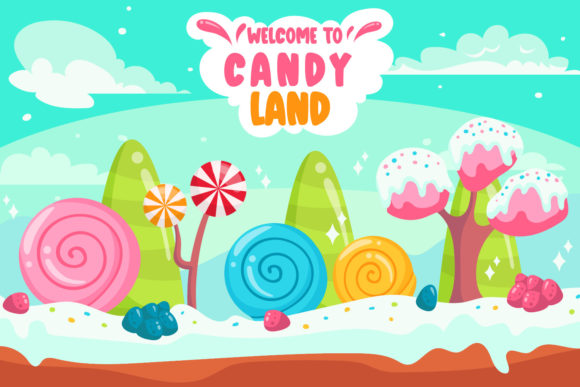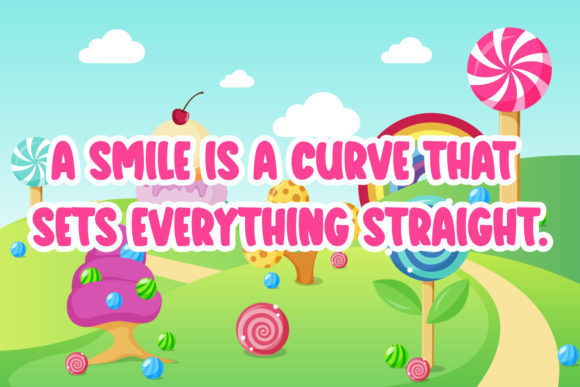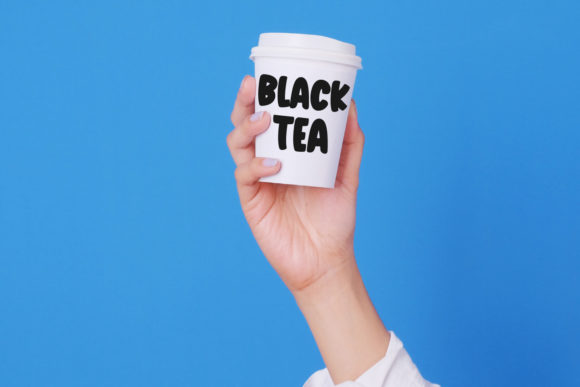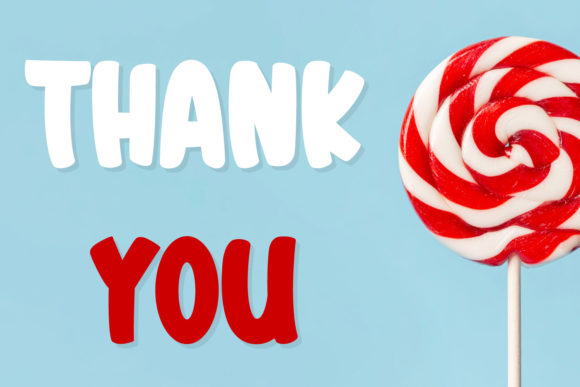
Introducing Display Candy Font: The Sweetest Addition to Your Design Toolbox
Are you tired of using the same old fonts in your designs? Look no further than Display Candy Font, a beautiful and cute display font that’s sure to add a touch of sweetness to your projects. With its unique and playful characters, Display Candy is perfect for a wide range of applications, from wall displays and wedding invitations to social media posts and product packaging.
What Makes Display Candy Font So Special?
Display Candy Font is a modern typography font that’s designed to make your designs stand out. Its characters are carefully crafted to be both visually appealing and highly legible, making it perfect for use in a variety of contexts. Whether you’re a designer, crafter, or DIY enthusiast, Display Candy Font is sure to become a favorite in your toolbox.
So, what can you use Display Candy Font for? The possibilities are endless! Here are just a few ideas to get you started:
- Wall Displays: Add a touch of personality to your wall displays with Display Candy Font. Perfect for showcasing quotes, lyrics, or fun phrases.
- Wedding Invitations: Make your wedding invitations truly special with Display Candy Font. Its elegant and playful characters are sure to impress your guests.
- Social Media Posts: Add some visual interest to your social media posts with Display Candy Font. Perfect for creating eye-catching graphics and quotes.
- Logos: Use Display Candy Font to create a unique and memorable logo for your business or brand.
- Advertisements: Make your advertisements stand out with Display Candy Font. Its bold and playful characters are sure to grab attention.
- Product Packaging: Add a touch of personality to your product packaging with Display Candy Font. Perfect for creating labels, tags, and other packaging materials.
- Product Design: Use Display Candy Font to create beautiful and functional product designs. Perfect for creating graphics, icons, and other visual elements.
- Labels: Create custom labels for your products or projects with Display Candy Font.
- Photography: Add a touch of personality to your photography with Display Candy Font. Perfect for creating watermarks, overlays, and other visual effects.
- Invitations: Use Display Candy Font to create custom invitations for parties, events, and other special occasions.
- Stationery: Add a touch of personality to your stationery with Display Candy Font. Perfect for creating custom notebooks, journals, and other paper products.
Why Choose Display Candy Font?
So, why should you choose Display Candy Font for your design projects? Here are just a few reasons:
- Unique and Playful Characters: Display Candy Font features unique and playful characters that are sure to add a touch of personality to your designs.
- Highly Legible: Despite its playful design, Display Candy Font is highly legible, making it perfect for use in a variety of contexts.
- Modern Typography: Display Candy Font is a modern typography font that’s designed to make your designs stand out.
- Versatile: Display Candy Font is versatile and can be used in a wide range of applications, from digital designs to print materials.
Get Ready to Add Some Sweetness to Your Designs
Tips and Tricks for Using Display Candy Font
Here are a few tips and tricks for getting the most out of Display Candy Font:
- Experiment with Different Sizes: Display Candy Font looks great in a variety of sizes, so don’t be afraid to experiment and find the perfect size for your design.
- Pair with Other Fonts: Display Candy Font pairs well with a variety of other fonts, so try pairing it with different fonts to create a unique and interesting design.
- Use in Combination with Images: Display Candy Font looks great in combination with images, so try using it to add text to your photos or illustrations.
- Make it Your Own: Don’t be afraid to get creative and make Display Candy Font your own. Experiment with different colors, textures, and effects to create a unique and personalized design.